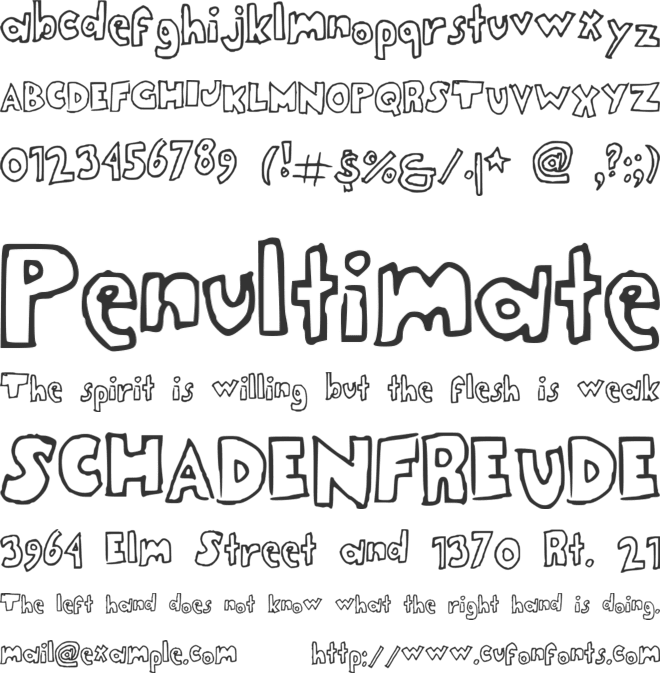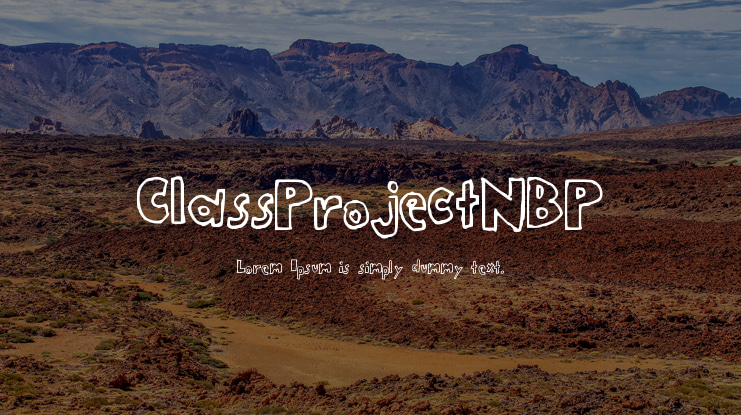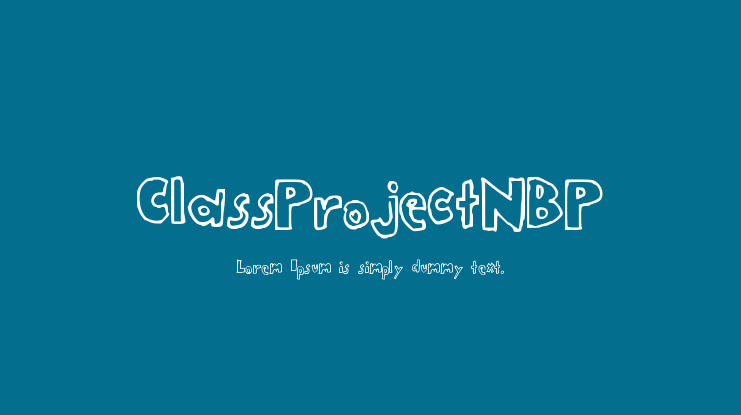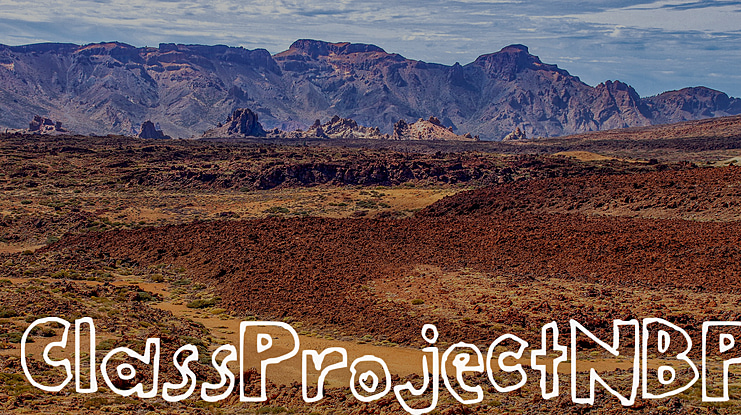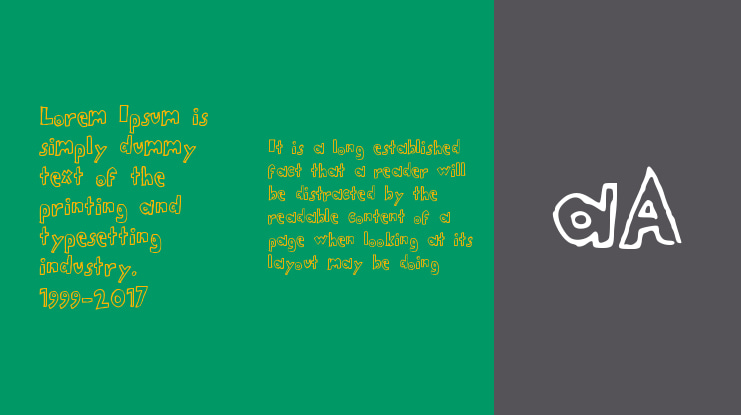
ClassProjectNBP Font
The block lettering I used to use on real actual class projects (or as near to it as I could remember) Also contains a few useful dingbats (arrows, faces, shapes and things) Since MyScriptFont doesn't support lowercase n-tildes, the regular Tilde ~ key is a lower n-tilde.